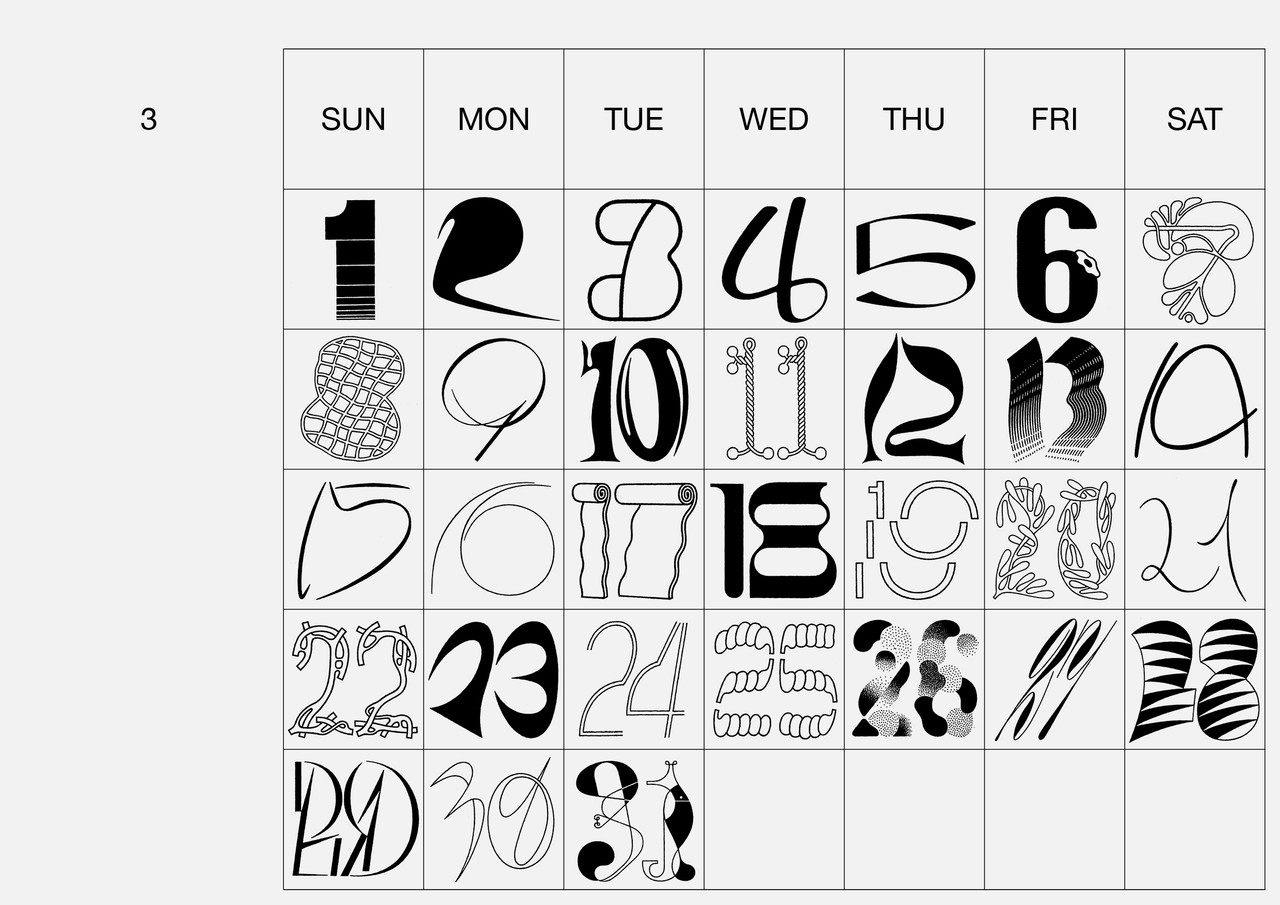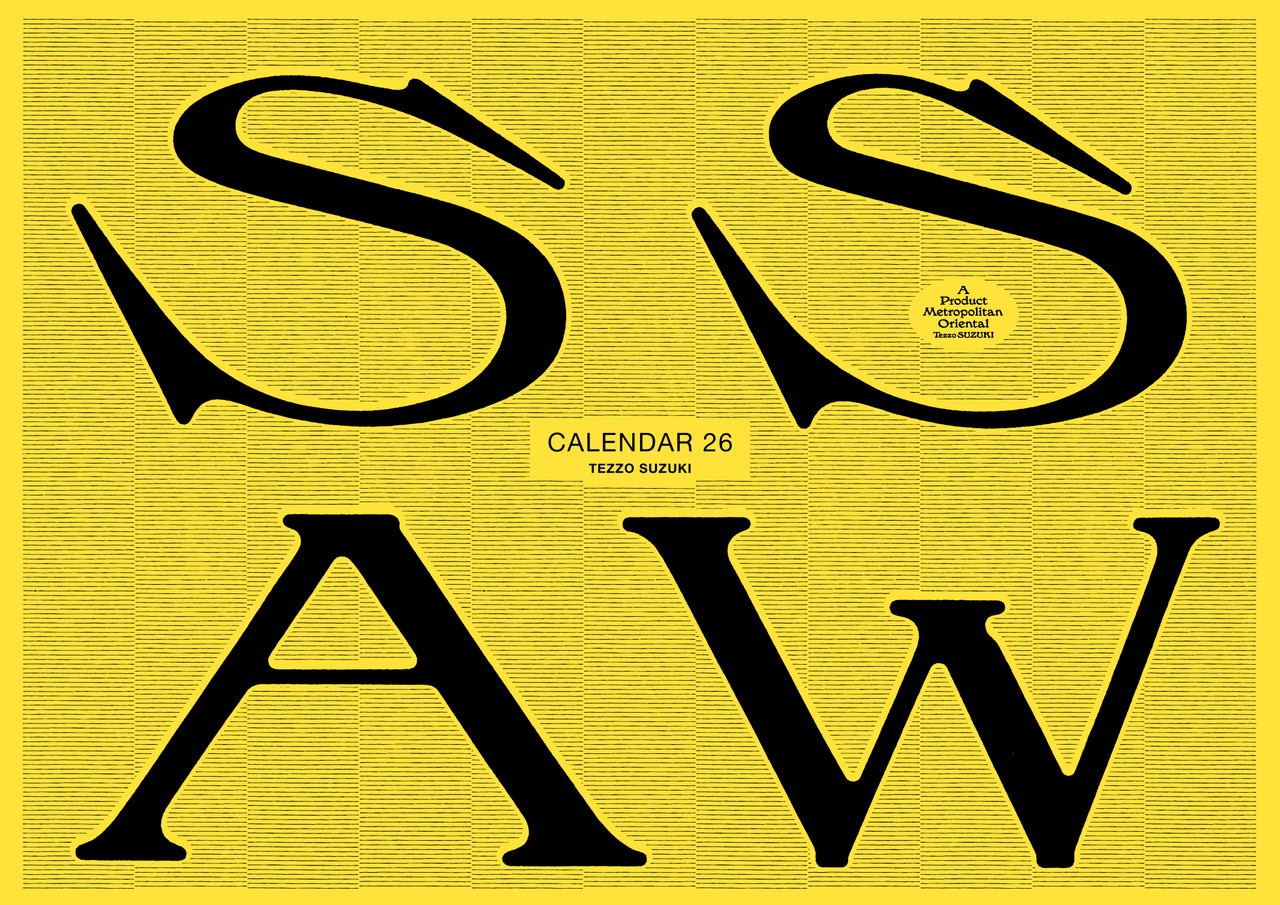
Tezzo Suzuki
Tezzo Suzuki Calendar 26 (2026)
Celebrate each day of 2026 with a unique, hand-drawn date. A yearly tradition from Japanese designer Tezzo Suzuki since 2012. This year features 228 new numeral designs.